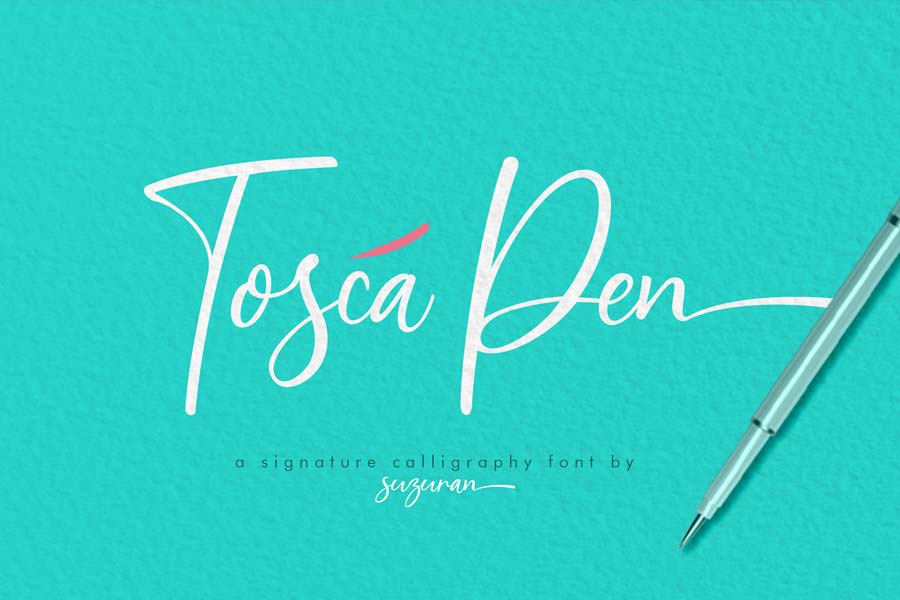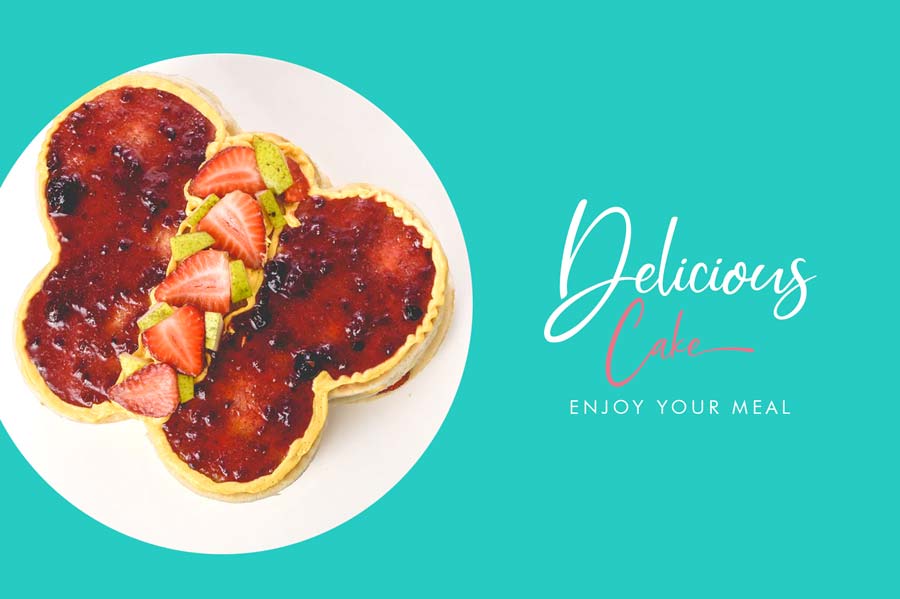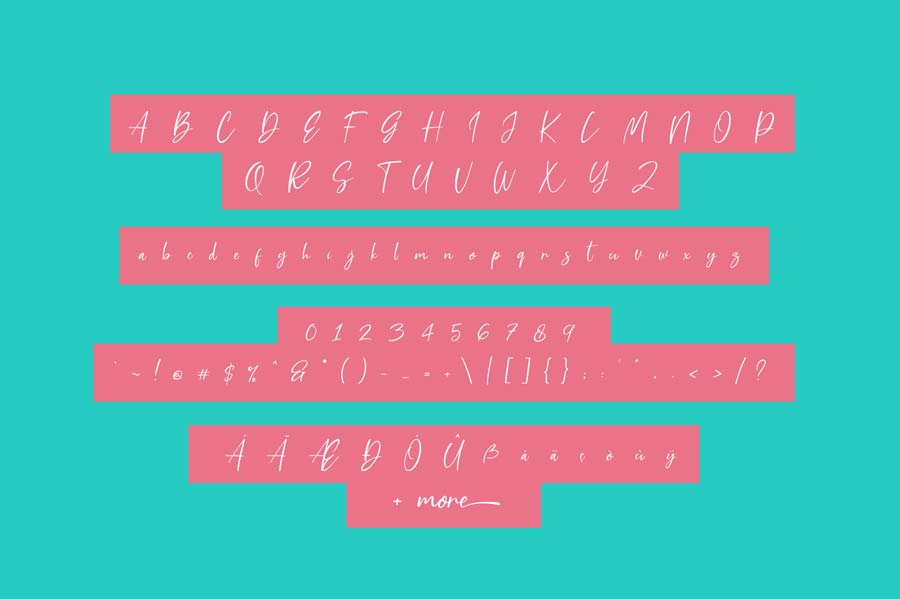
Tosca Pen is an elegant signature handwriting style font made with calligraphy pen. It features fluidic strokes with stylish balance of thicker and thinner strokes.
Tosca Pen will be a good choice for design works that are more casual, lighthearted and for young and female audiences. It comes with healthy selections of character set with extra alternates. The free version of the font is only for personal projects only.